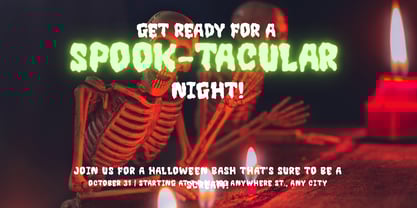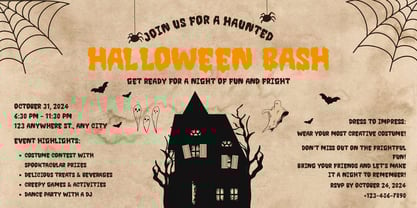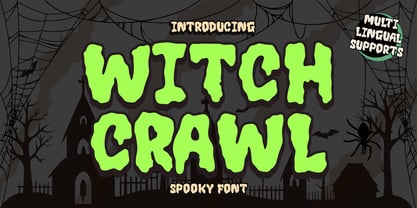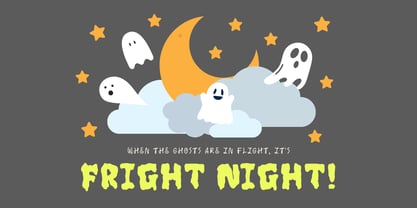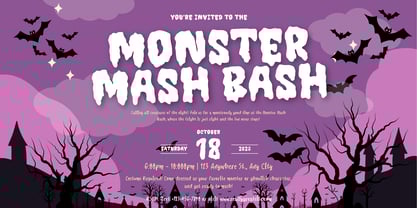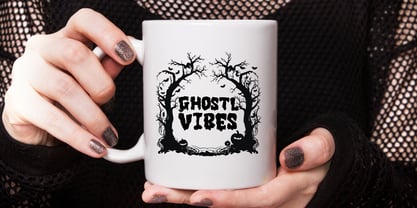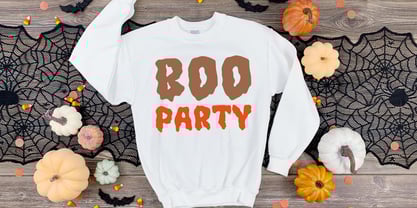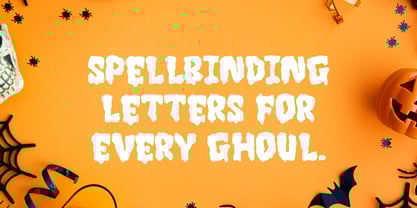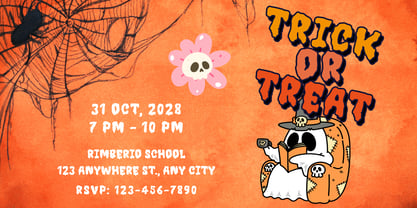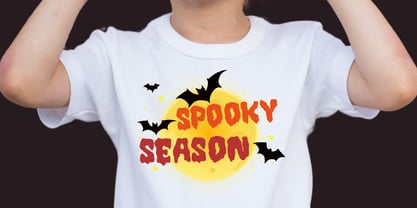
Witchcrawl
by Brown Cupple Typeface
The Witchcrawl Font Family was designed by Nattha​ Potchanad​ and published by Brown Cupple Typeface. Witchcrawl contains 1 styles.
Witchcrawl is a Halloween decorative font that embodies playfulness, charm, and authenticity. It’s the perfect choice for your favorite projects—whether spooky or fun—such as blog posts, logos, branding, ads, invitations, greeting cards, planners, photo albums, decorations, social media graphics, and more. Add it to any of your designs and enjoy magical results!